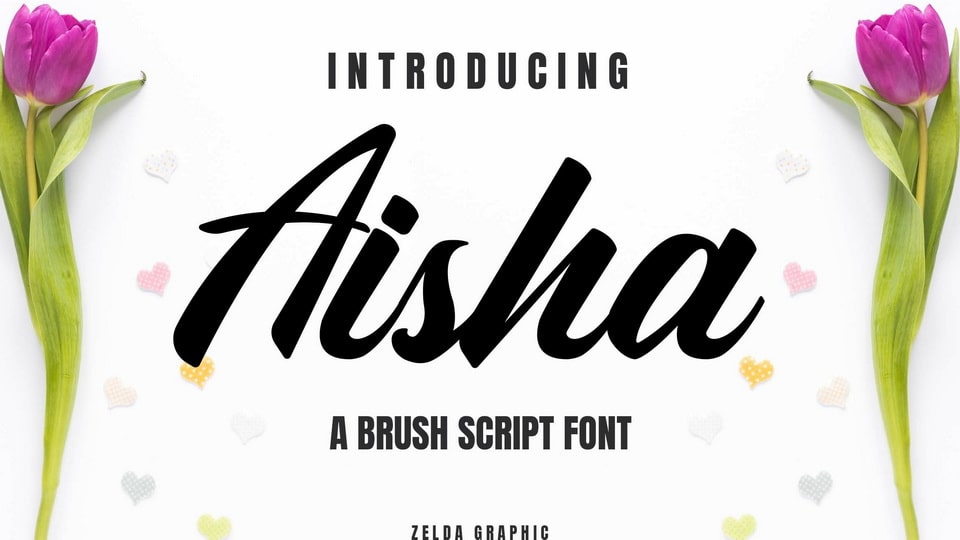
Feb 3, 2025Script & HandwrittenAisha Font Aisha is a cute and fun script font with a strikingly authentic feel. Great for logo, poster, sticker, jersey, invitation card, brochure, etc. Font DetailsDesigned by: Zelda GraphicWebsiteLicense: Free for personal use Download Aisha FontFile size: 27.84 KBCreated: February 16, 2025Updated: February 16, 2025 Download Explore similar fonts Casa Lienta Font Honeybloom Font Easton Miles Font Vakantcy Font Shorebreak Script Font Penlinea Font # Brush# Calligraphy# Hand-drawn# Handwriting# Lettering More fonts by Zelda GraphicVanilla Milk FontManilla FontAliyah FontSullivan FontRossa FontBeathy FontValkrie Font